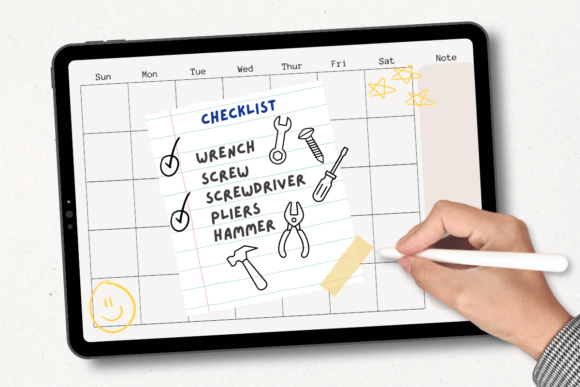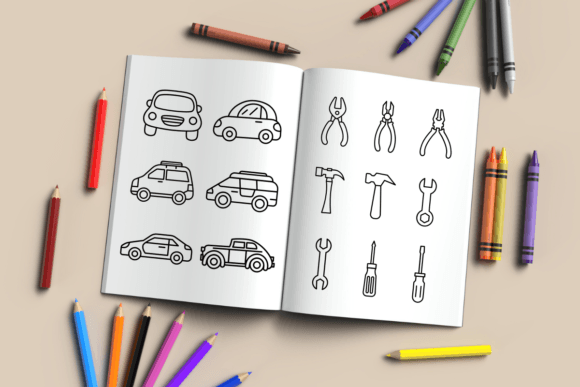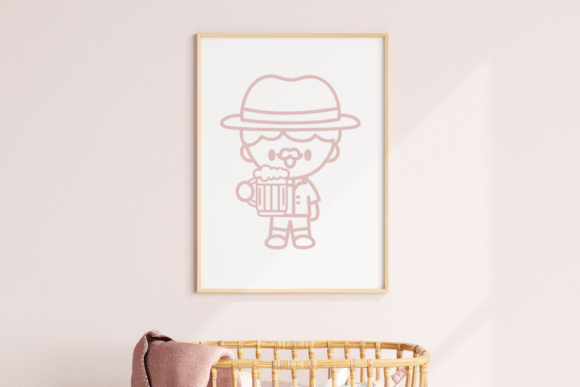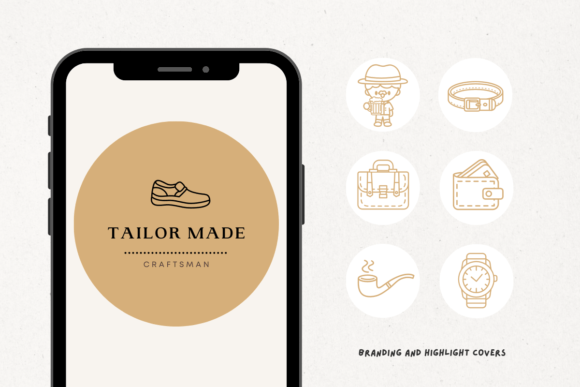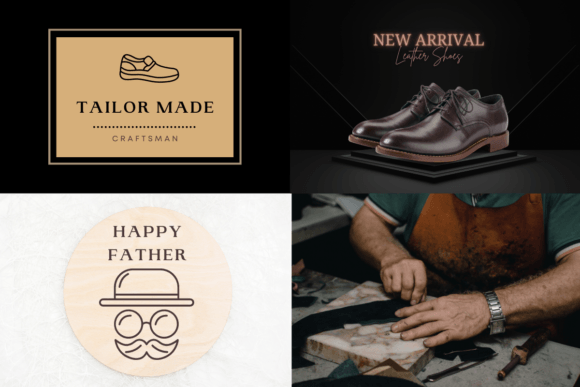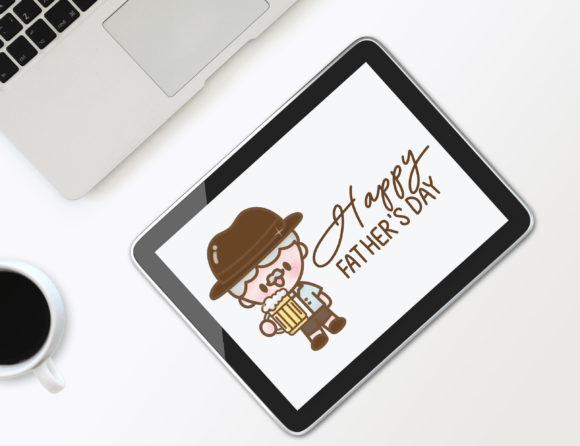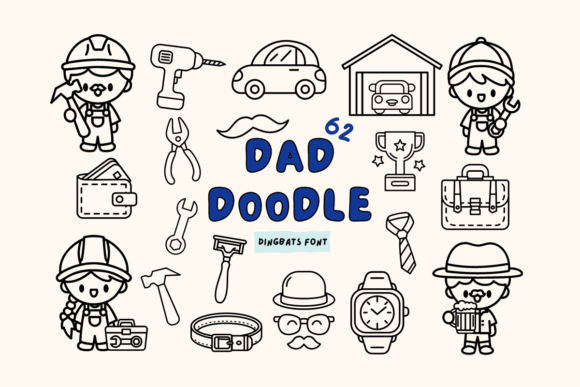
Dad Doodle Font: A Playful and Heartwarming Typeface for Fatherhood
Are you looking for a font that captures the love and playfulness of fatherhood? Look no further than the Dad Doodle Font! This delightful typeface features hand-drawn illustrations inspired by the joys of being a dad. With its unique blend of doodles, tools, ties, mustaches, and added mechanics, cars, and leather, this font is perfect for Father’s Day cards, automotive-themed projects, and more.
The Inspiration Behind Dad Doodle Font
The Dad Doodle Font is a labor of love, created to celebrate the special bond between fathers and their children. The font’s designer drew inspiration from the everyday things that dads love, like tools, cars, and ties. The result is a playful and heartwarming typeface that is sure to bring a smile to anyone’s face.
Key Features of Dad Doodle Font
- Hand-drawn illustrations: Each letter and symbol in the Dad Doodle Font is carefully hand-drawn to create a unique and playful look.
- Doodles of tools, ties, mustaches, and more: The font features a range of fun and quirky doodles that are inspired by fatherhood.
- Added mechanics, cars, and leather: The font also includes illustrations of mechanics, cars, and leather, making it perfect for automotive-themed projects.
- Playful and heartwarming: The Dad Doodle Font is designed to capture the love and playfulness of fatherhood in a delightful and versatile way.
Uses for Dad Doodle Font
The Dad Doodle Font is a versatile typeface that can be used for a wide range of projects, including:
- Father’s Day cards: Create personalized and unique Father’s Day cards with the Dad Doodle Font.
- Automotive-themed projects: Use the font to create eye-catching posters, flyers, and brochures for automotive-themed events or promotions.
- Crafting and DIY projects: Add a personal touch to your crafting and DIY projects, such as handmade gifts, decorations, and more.
- Digital graphics and illustrations: Use the Dad Doodle Font to create fun and playful digital graphics and illustrations for social media, blogs, and websites.
Why Designers and Crafters Love Dad Doodle Font
Designers and crafters love the Dad Doodle Font for its unique and playful style. Here are just a few reasons why:
- Unique and eye-catching: The Dad Doodle Font is a one-of-a-kind typeface that is sure to grab attention.
- Versatile: The Dad Doodle Font can be used for a wide range of projects, from digital graphics to handmade crafts.
- Fun and playful: The font’s playful and heartwarming style is sure to bring a smile to anyone’s face.
In conclusion, the Dad Doodle Font is a playful and heartwarming typeface that is perfect for designers and crafters looking to add a personal touch to their projects. With its unique blend of hand-drawn illustrations and doodles of tools, ties, mustaches, and more, this font is sure to capture the love and playfulness of fatherhood in a delightful and versatile way. Whether you’re creating Father’s Day cards, automotive-themed projects, or handmade crafts, the Dad Doodle Font is a great choice.